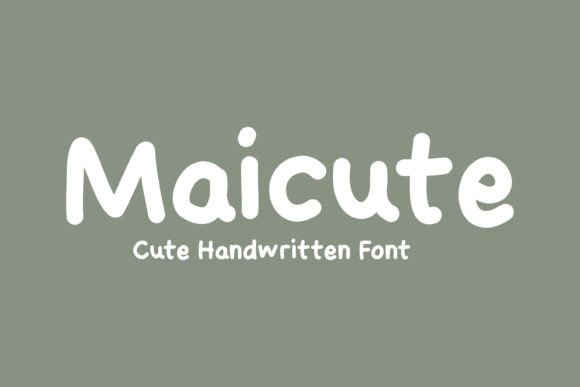
Welcome to the world of Maicute Font, a script font family that exudes sweetness and friendliness. Its natural and unique style makes it incredibly fitting for a vast array of designs. The only limit is your imagination!
With Maicute Font, your designs will come alive with a touch of playfulness and charm. Its carefully crafted characters dance across the page, creating a visual symphony that captures attention and sparks joy.
Unleash your creativity and let Maicute Font guide you through a journey of artistic expression. Whether you're designing logos, invitations, social media graphics, or any other project that calls for a touch of whimsy, Maicute Font is the perfect choice.
Immerse yourself in the world of Maicute Font and discover the endless possibilities it offers. From playful and charming to elegant and sophisticated, Maicute Font adapts seamlessly to any design style, adding a touch of magic that will leave a lasting impression.
Don't settle for ordinary fonts. Embrace the extraordinary with Maicute Font. Its captivating curves and playful strokes will transform your designs into works of art that resonate with your audience.
Join the growing community of designers who have discovered the power of Maicute Font. Let your creativity soar and create designs that spark joy, inspire imaginations, and leave an enduring legacy of beauty.